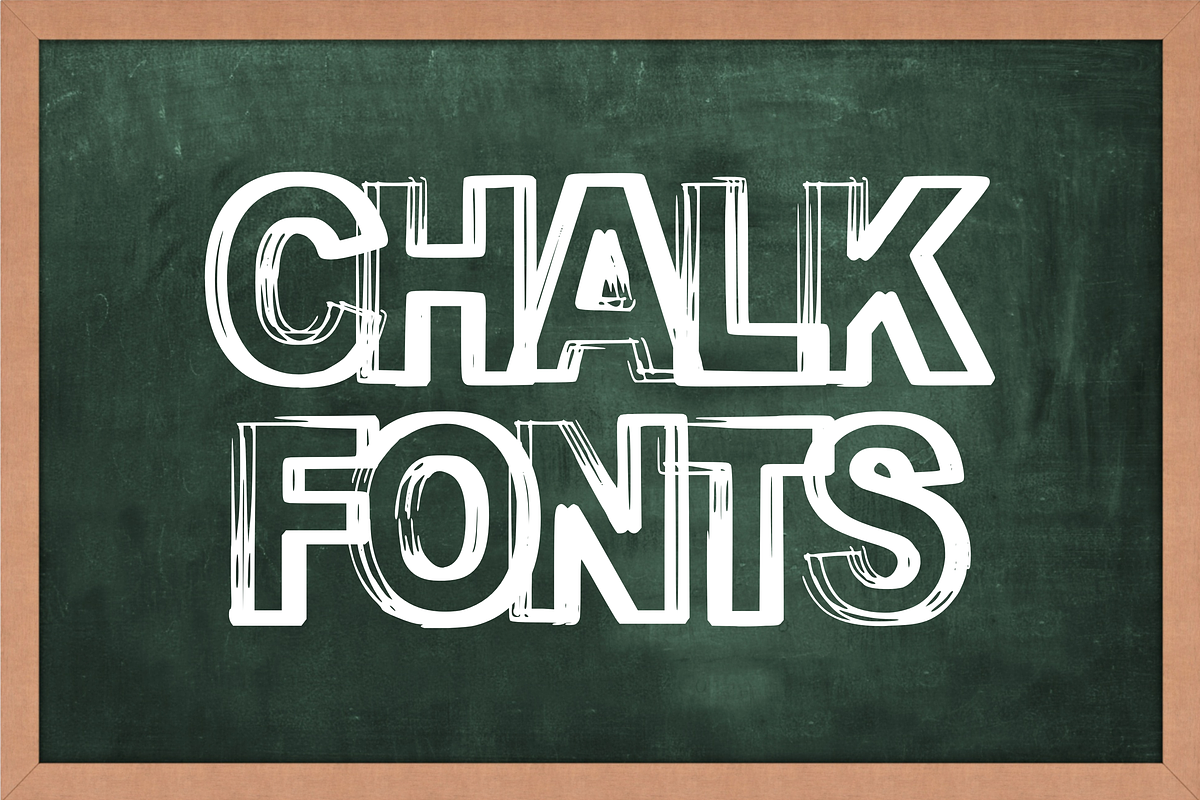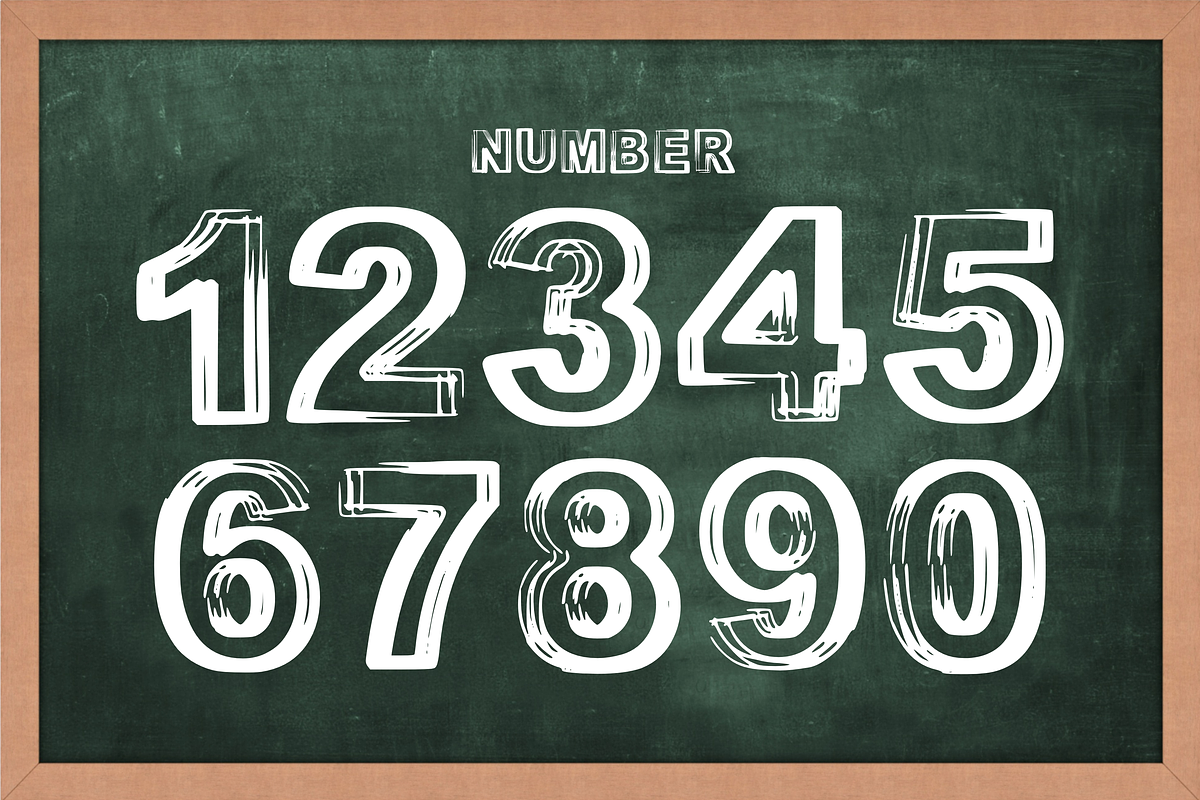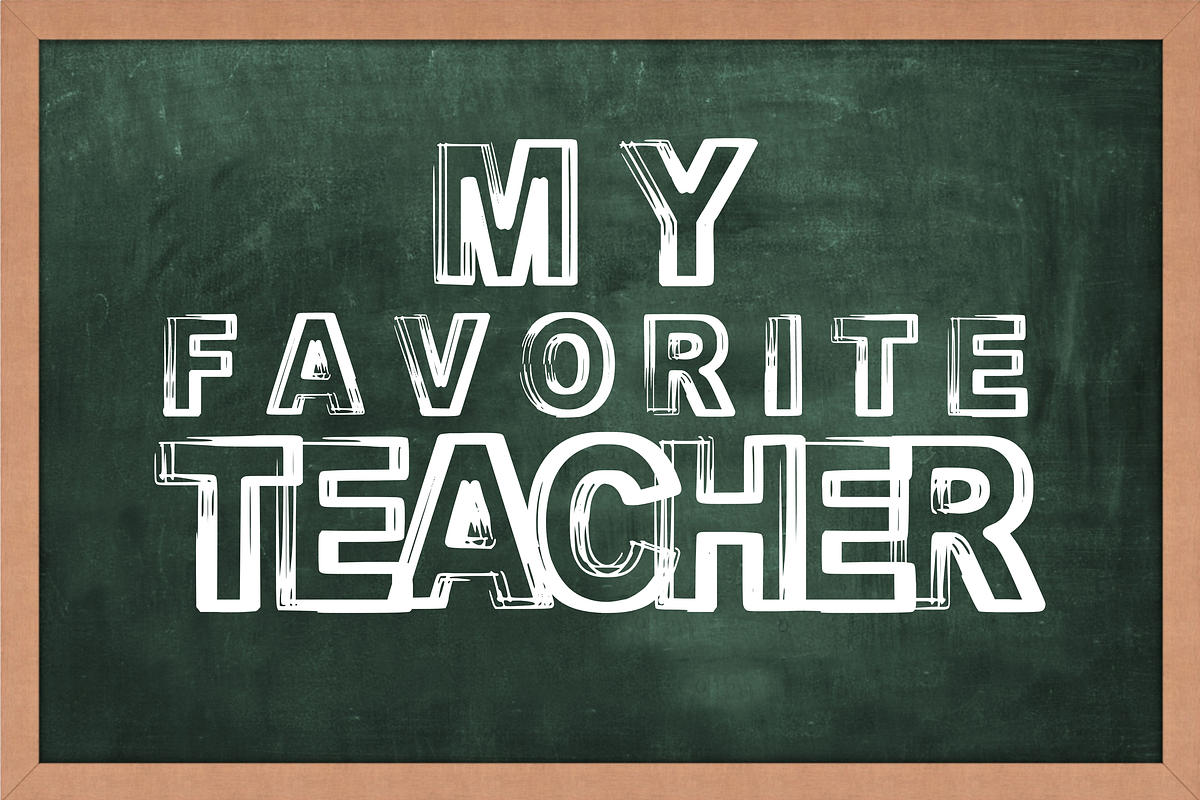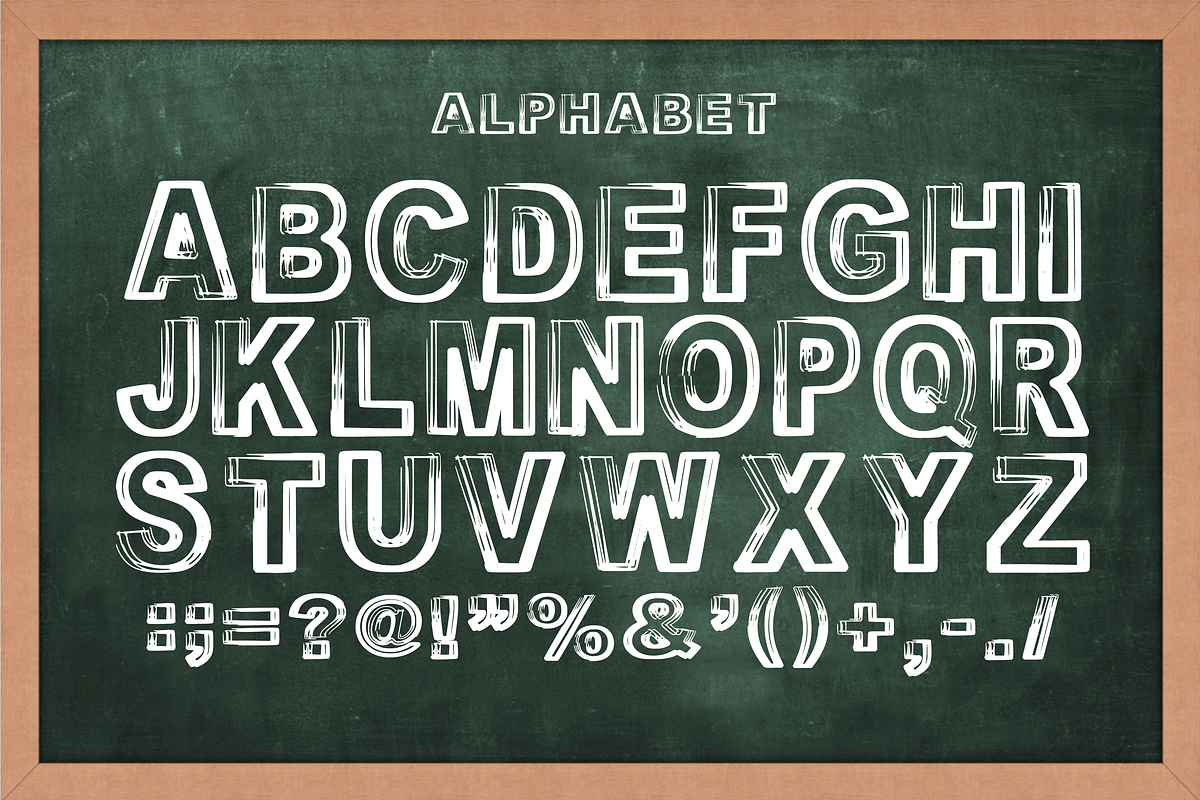
Teacher - Chalk Writing Font Types
Immerse your designs in the charm of ‘Font Teacher’, a distinct display font crafted in the form of chalk strokes. Its individual lines blend harmoniously to create perfectly balanced proportions, giving off an inviting ambience, elegantly uncomplicated. Whether it’s a poster, blog header, or a branding project, Font Teacher infuses a contemporary versatility, breathing new life into your typographic ventures. This font is an embodiment of modernity infused with a nostalgic touch of the classroom chalkboard, making every design project engaging, legible, and visually appealing.